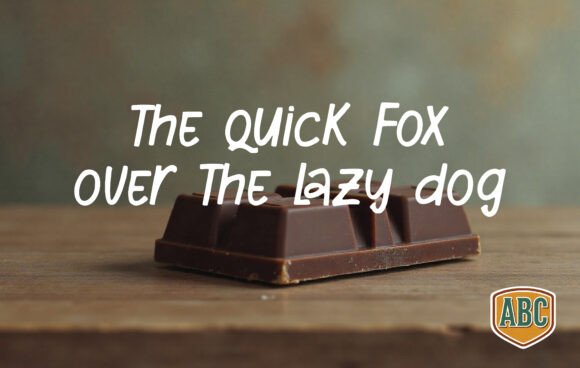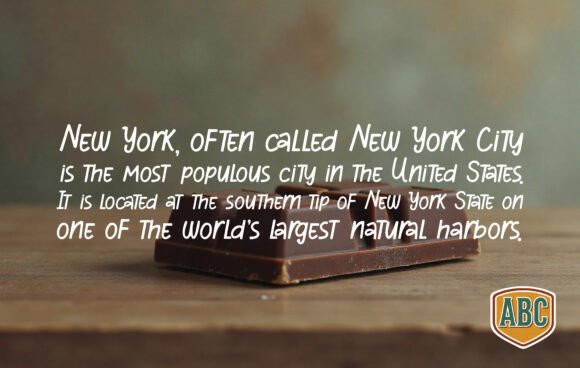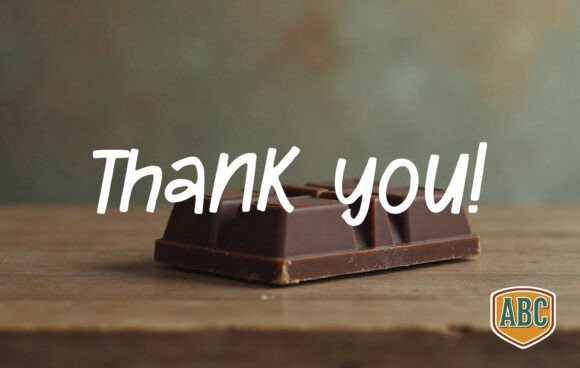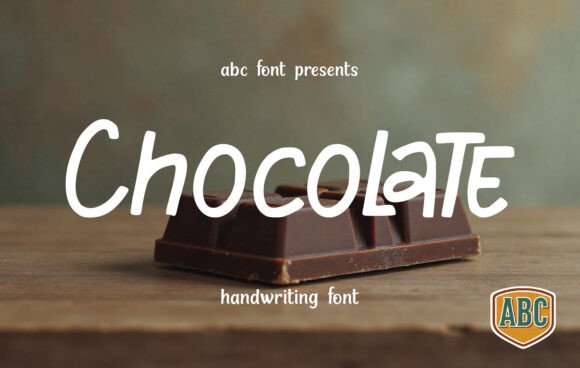
Savor the Sweetness: Discover the Charm of the Chocolate Font
Are you looking for a typeface that embodies the warmth and coziness of a homemade treat? Look no further than the Chocolate font, a deliciously smooth handwriting typeface that’s perfect for food-related branding, packaging, and crafting projects. With its thick, flowing strokes and soft, organic curves, this appetizing font is sure to make your designs stand out and leave a lasting impression.
The Perfect Blend of Casual and Cozy
The Chocolate font is all about evoking a sense of casual, cozy charm. Its unique blend of smooth, melted-butter appeal and bouncy cheerfulness makes it an instant favorite for designers and crafters alike. Whether you’re working on a branding project for a bakery, dessert shop, or coffee house, this font is sure to bring a friendly, approachable touch to your designs. Its clear, inviting style is also excellent for labels, menus, social media graphics, and merchandise that aims for a comfortable, down-to-earth vibe.
What Makes the Chocolate Font So Special?
So, what sets the Chocolate font apart from other typefaces? Here are just a few of its standout features:
- Thick, flowing strokes: The Chocolate font features thick, flowing strokes that give it a smooth, handcrafted feel.
- Soft, organic curves: The font’s soft, organic curves add a touch of warmth and coziness to your designs.
- Handwritten charm: The Chocolate font has a distinctly handwritten feel, making it perfect for designs that aim for a personal, homemade touch.
- Highly legible: Despite its unique, handcrafted feel, the Chocolate font is highly legible, making it perfect for use in a variety of design applications.
Perfect for Food-Related Branding and Packaging
The Chocolate font is a natural fit for food-related branding and packaging projects. Its warm, inviting style is perfect for:
- Bakeries: Use the Chocolate font to create mouthwatering labels and packaging for your bakery’s sweet treats.
- Dessert shops: Add a touch of whimsy and charm to your dessert shop’s branding and packaging with the Chocolate font.
- Coffee houses: Use the Chocolate font to create cozy, inviting menus and branding materials for your coffee house.
Ideal for Crafting and DIY Projects
The Chocolate font is also perfect for crafting and DIY projects. Its handmade, homespun feel makes it a great fit for:
- Personalized gifts: Use the Chocolate font to add a personal touch to gifts, such as customized mugs, tumblers, and more.
- Crafting projects: Add a touch of charm to your crafting projects, such as knitting patterns, sewing projects, and more.
- Stationery and paper crafts: Use the Chocolate font to create beautiful, one-of-a-kind stationery and paper crafts.
Tips for Using the Chocolate Font
Here are a few tips for getting the most out of the Chocolate font:
- Pair it with complementary fonts: Pair the Chocolate font with complementary fonts, such as sans-serif fonts or script fonts, to create visual interest and contrast.
- Use it in moderation: While the Chocolate font is certainly eye-catching, it’s best used in moderation. Use it as a headline font or accent font to add a touch of charm to your designs.
- Experiment with colors: The Chocolate font looks great in a variety of colors, from rich, bold colors to soft, pastel shades. Experiment with different colors to find the perfect fit for your design.
The Chocolate font is a deliciously smooth handwriting typeface that’s perfect for food-related branding, packaging, and crafting projects. With its thick, flowing strokes and soft, organic curves, this appetizing font is sure to make your designs stand out and leave a lasting impression. Whether you’re a designer, crafter, or DIY enthusiast, the Chocolate font is sure to become a favorite in your toolkit.